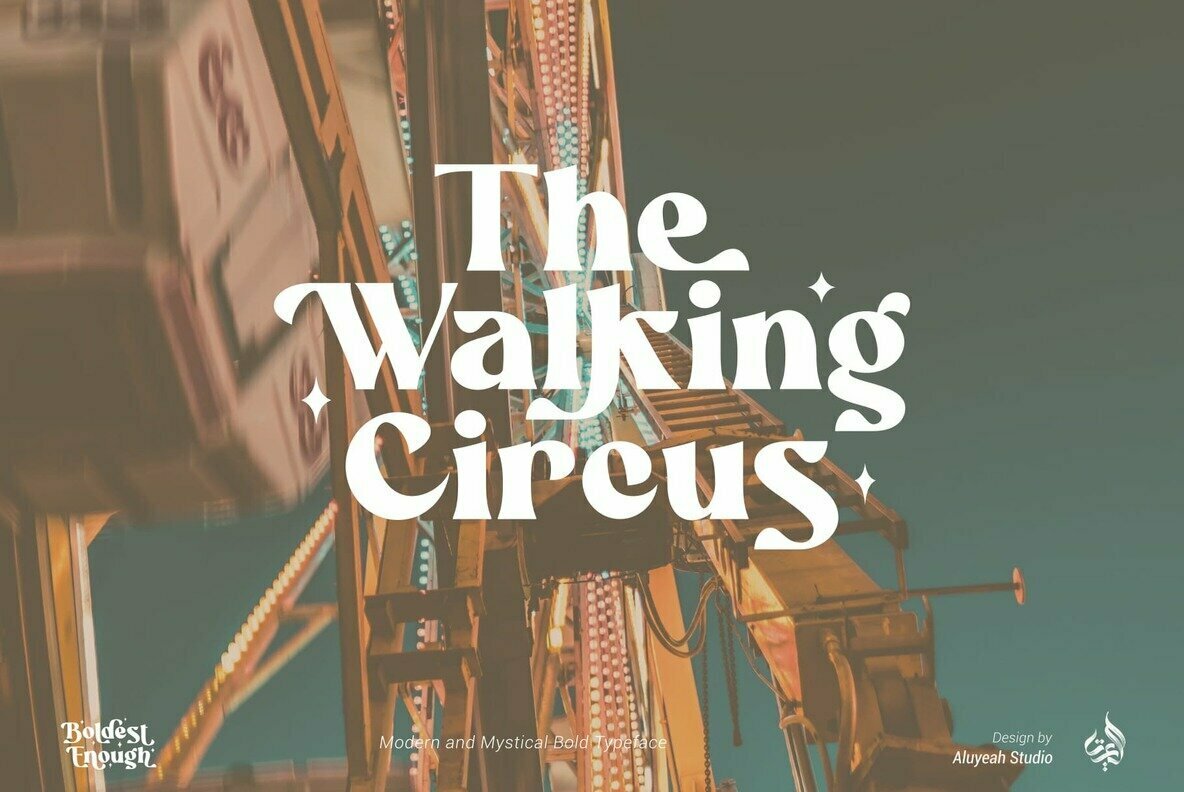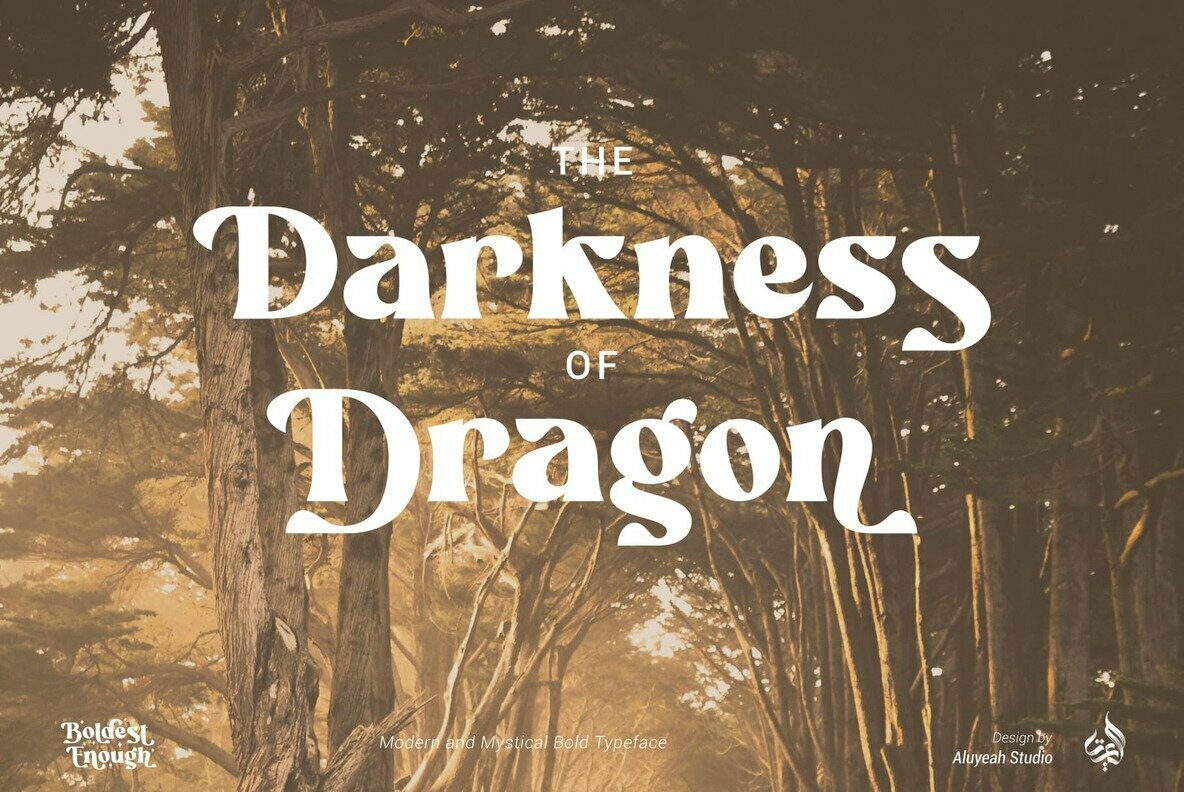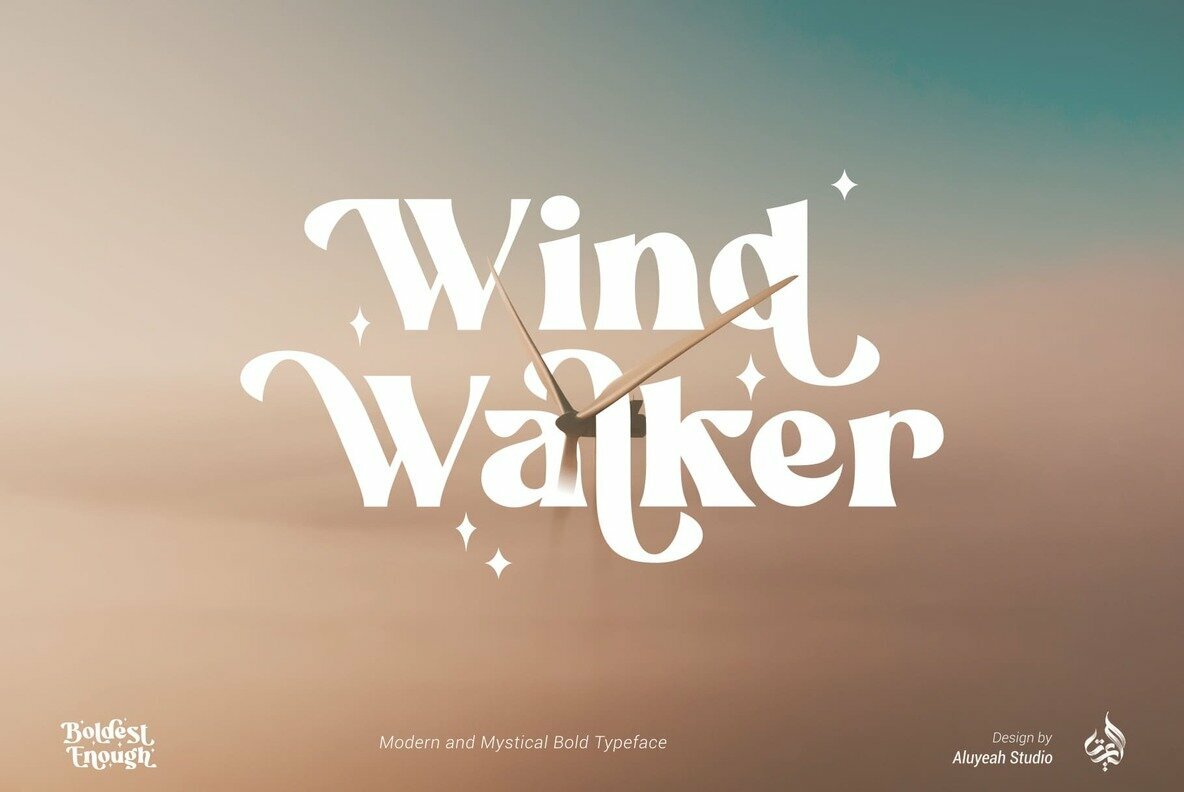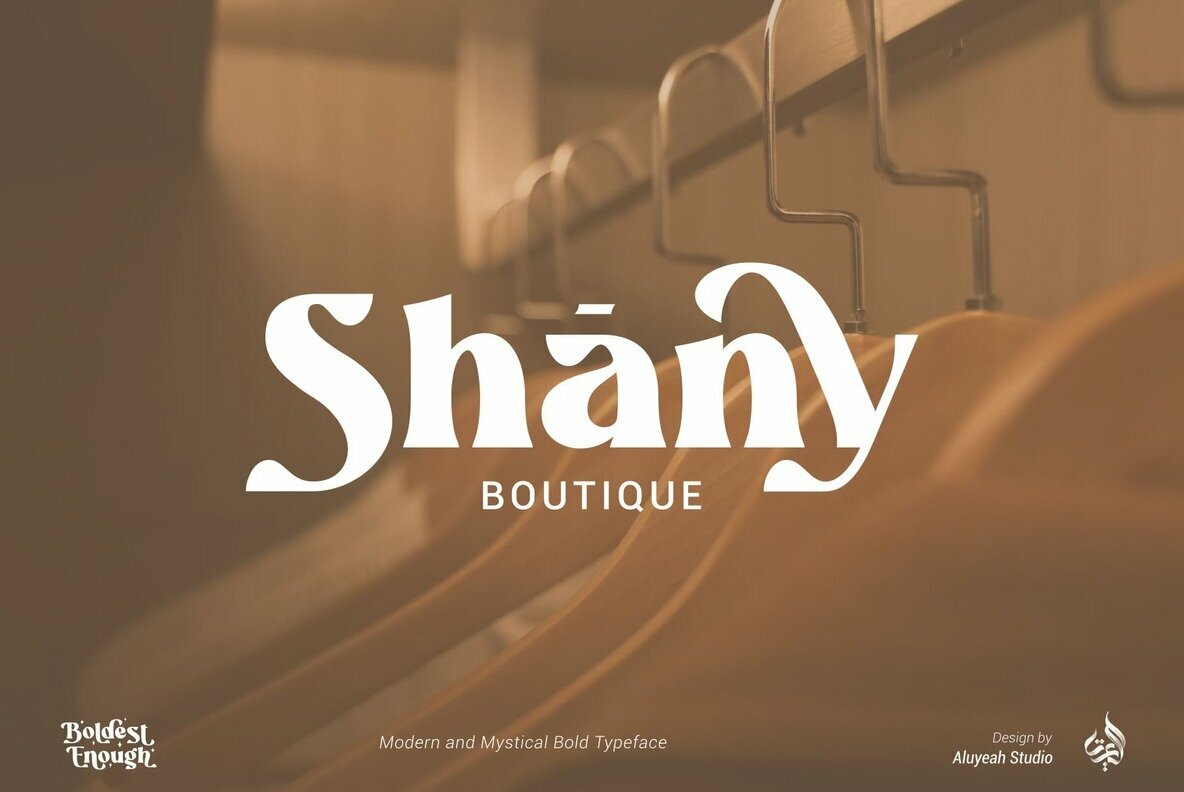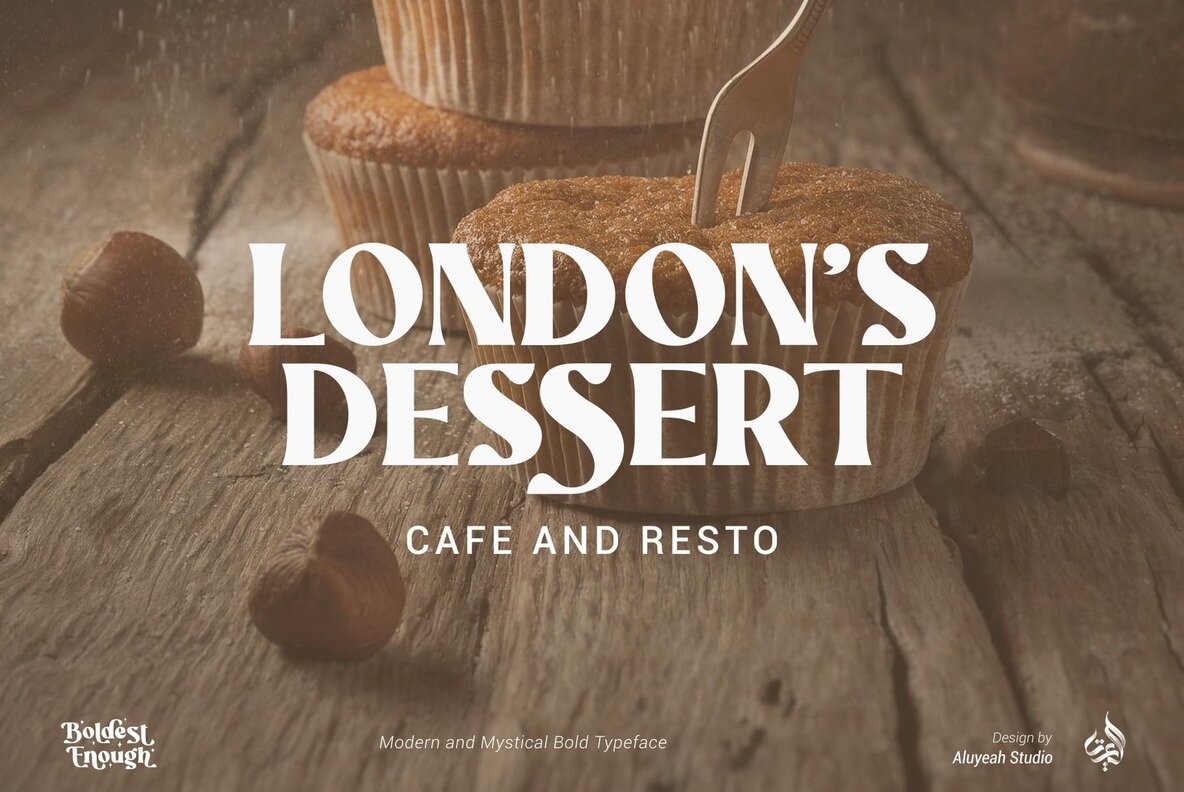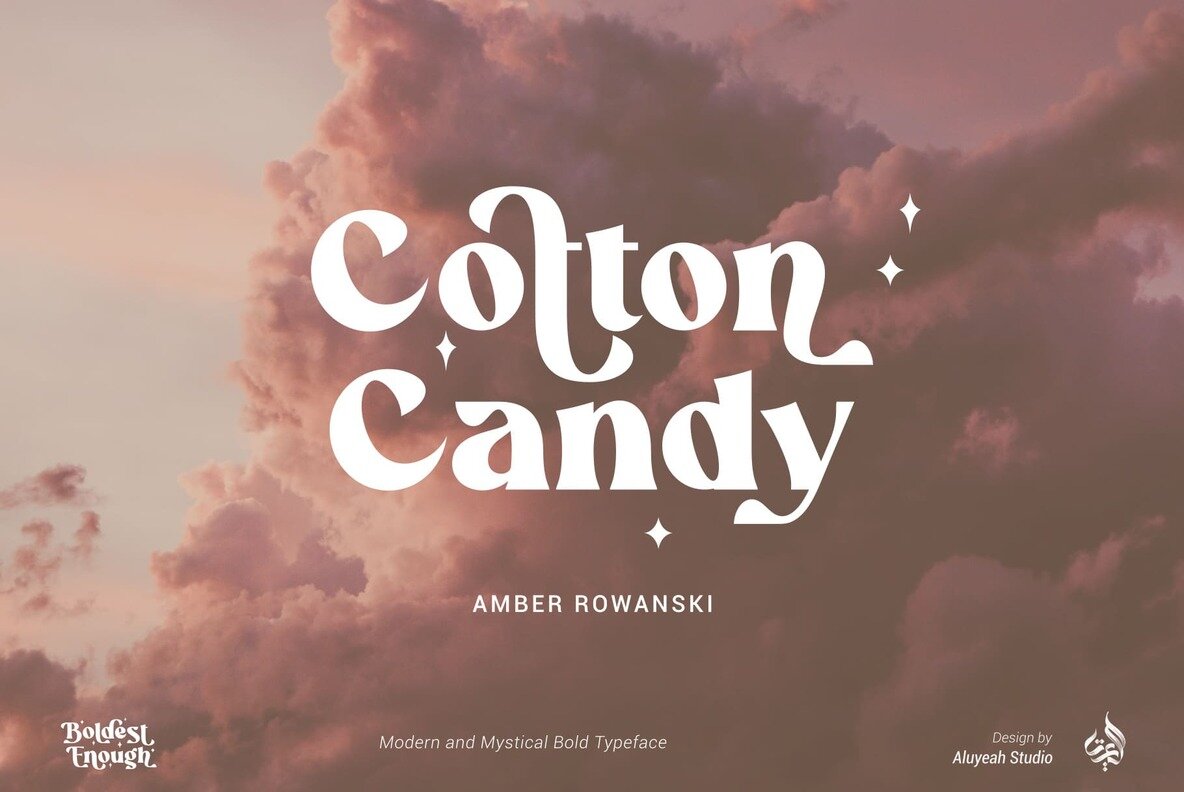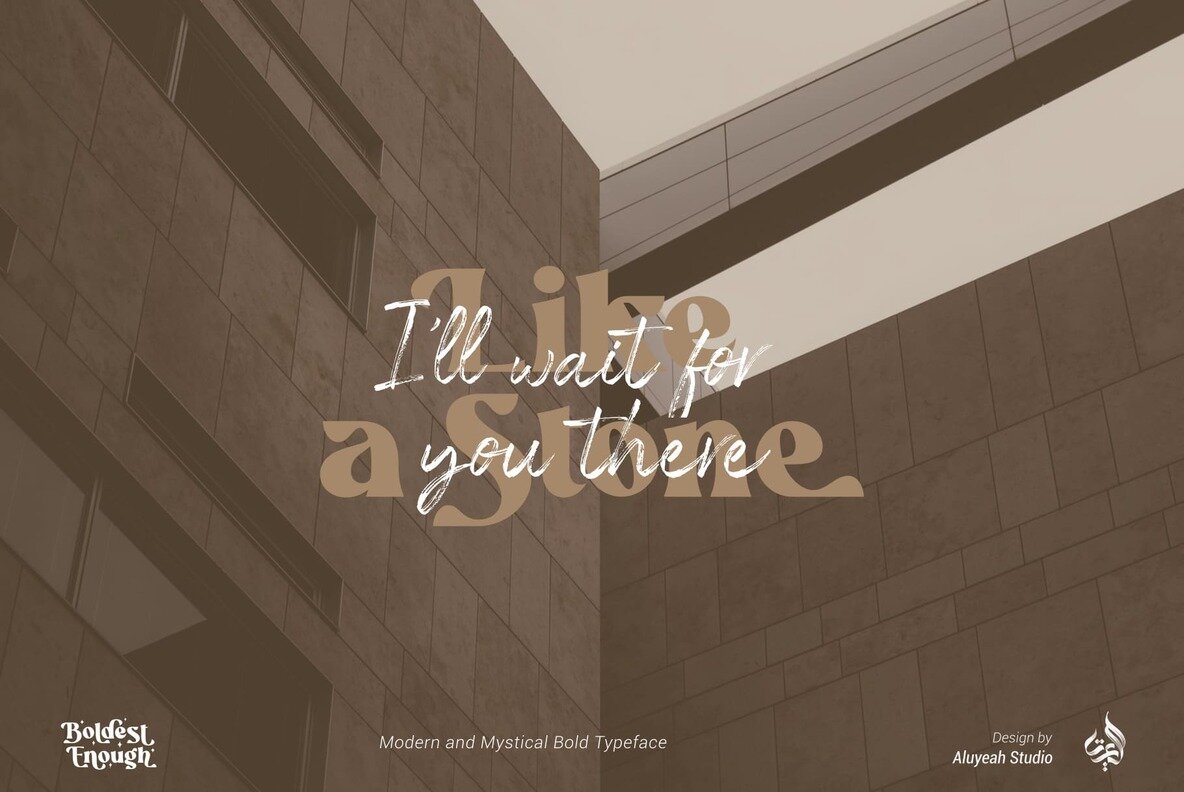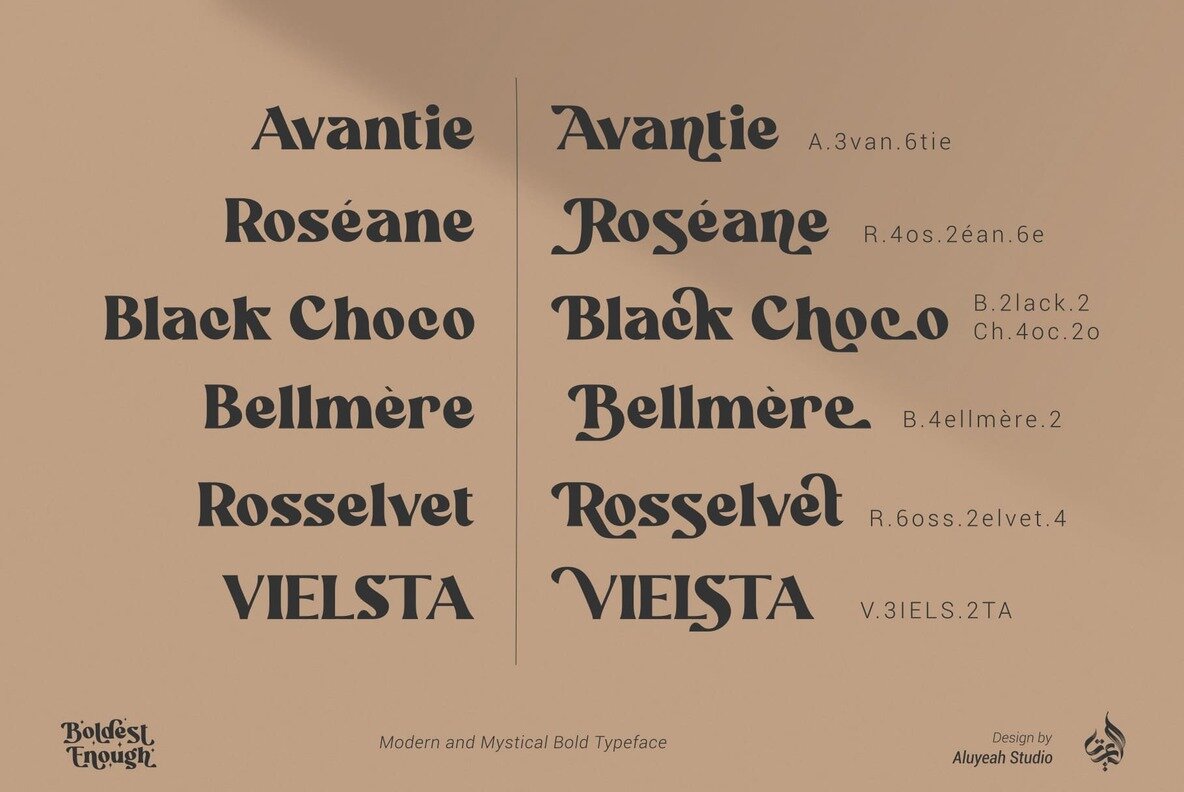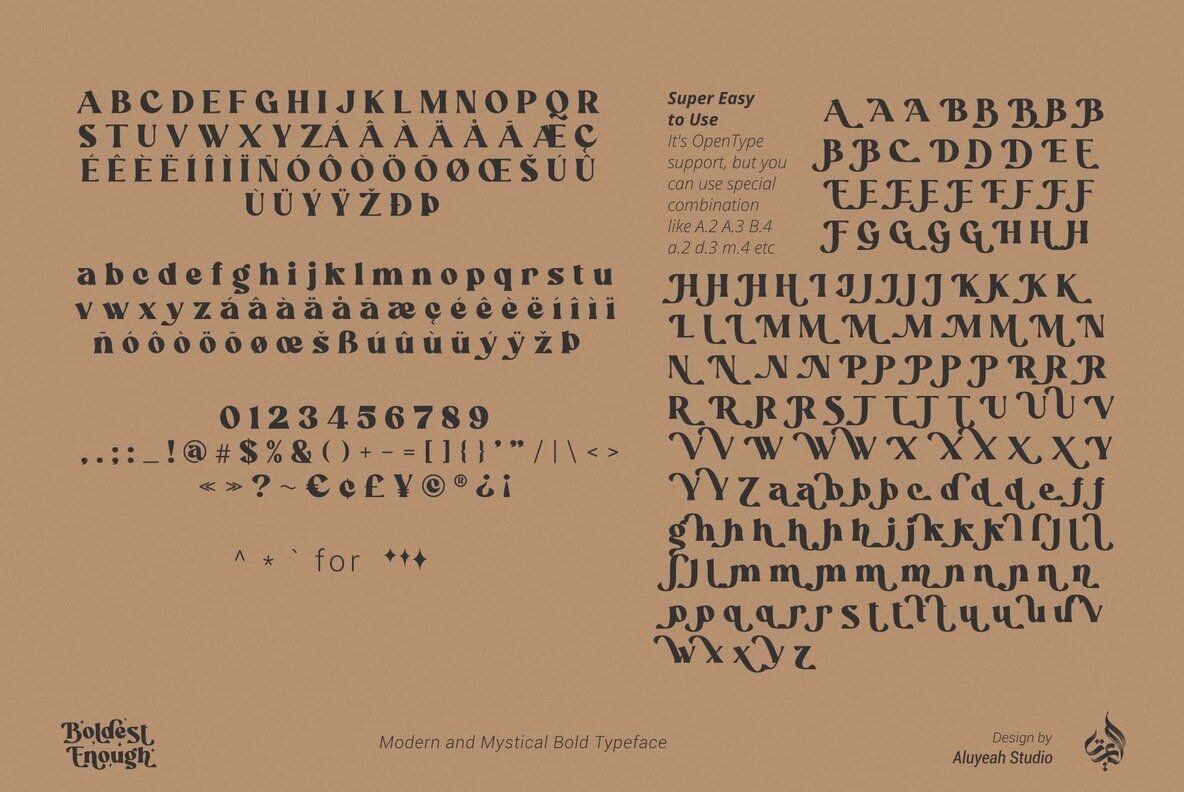
Boldest Enough Font
Al Boldest Enough
Immerse yourself in the captivating allure of Boldest Enough, a display typeface that seamlessly blends modernity with a mystical flair. Inspired by the eerie yet enchanting atmosphere of animated horror films for children, this bold typeface evokes emotions of fear, curiosity, and wonder. Its design, characterized by 160+ stunning alternates, allows for effortless customization, making it suitable for a variety of creative projects. A perfect choice for magazines, headlines, websites, advertisements, and product packaging, Boldest Enough offers versatility for designers seeking to make a statement.Boldest Enough: A Modern and Mystical Typeface